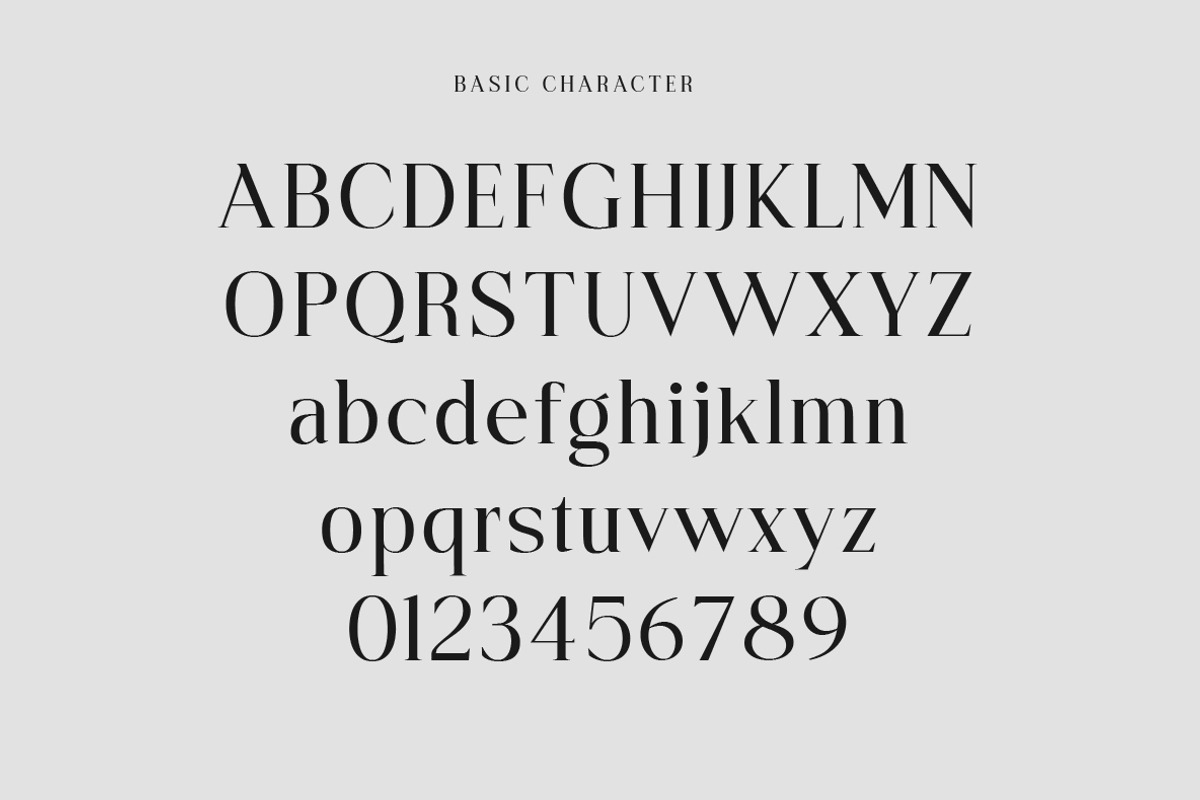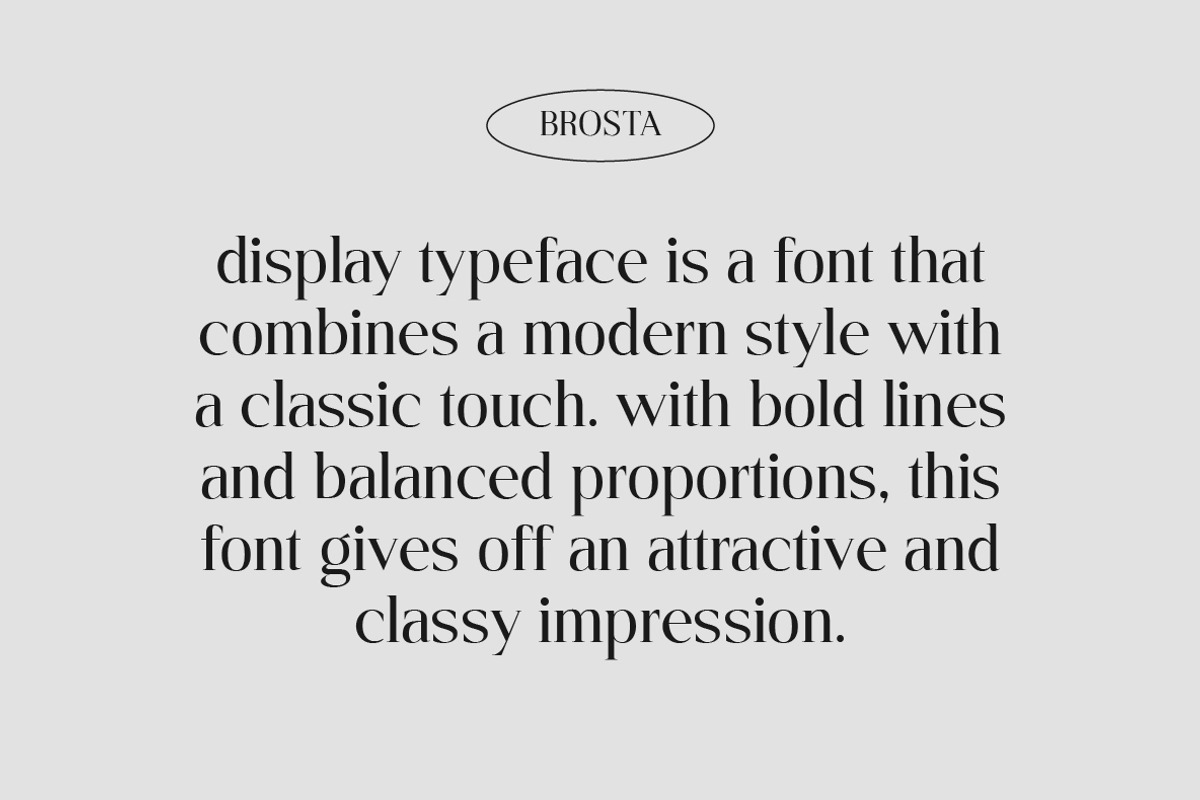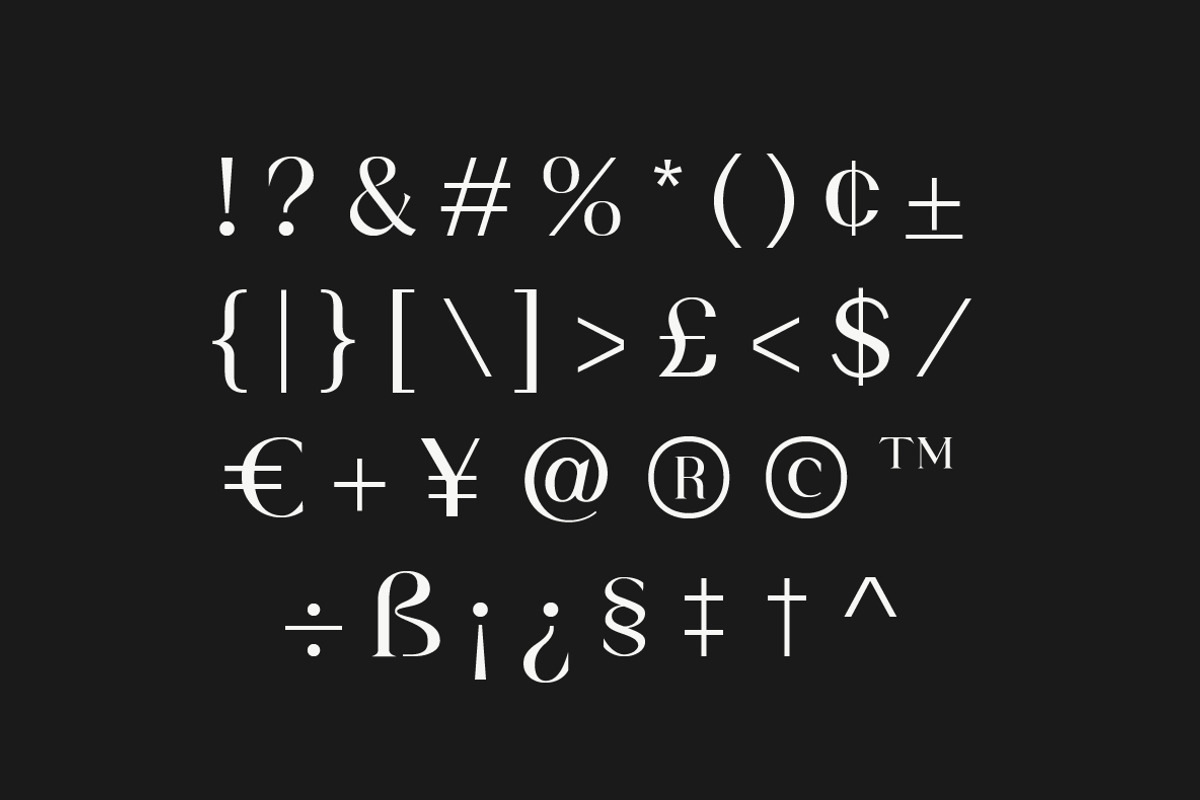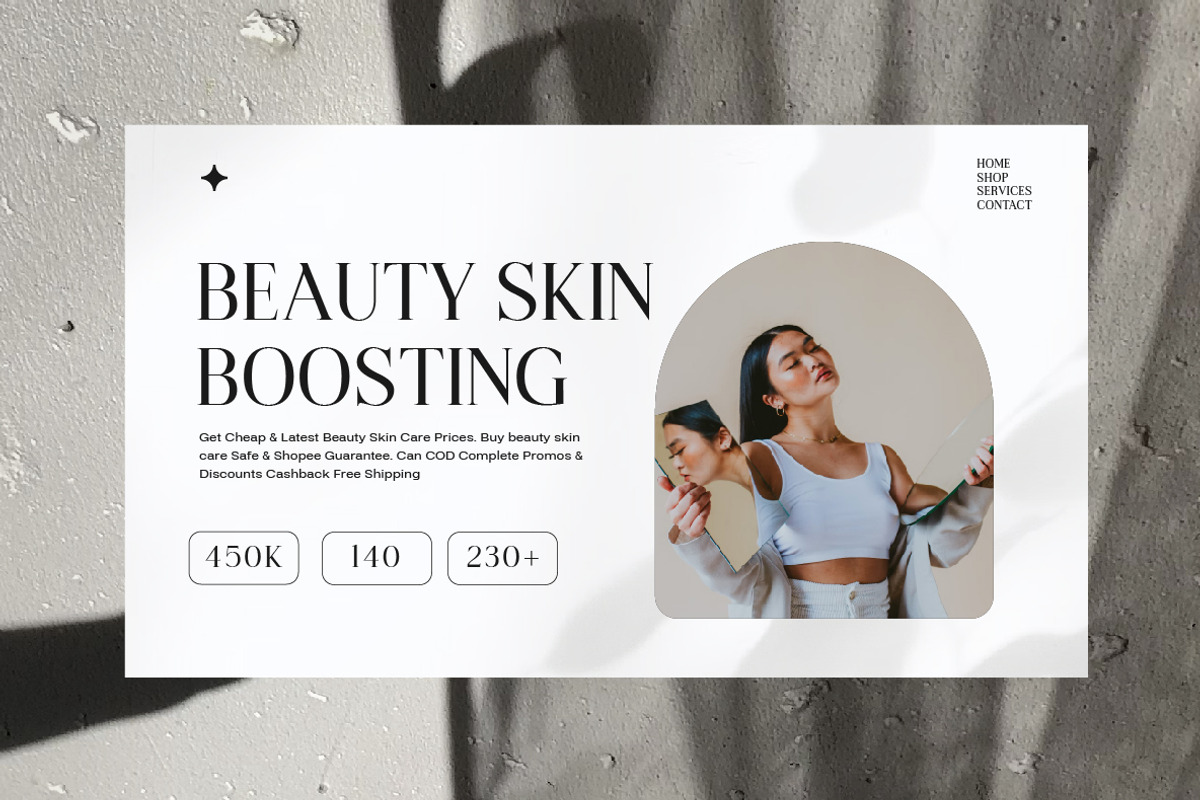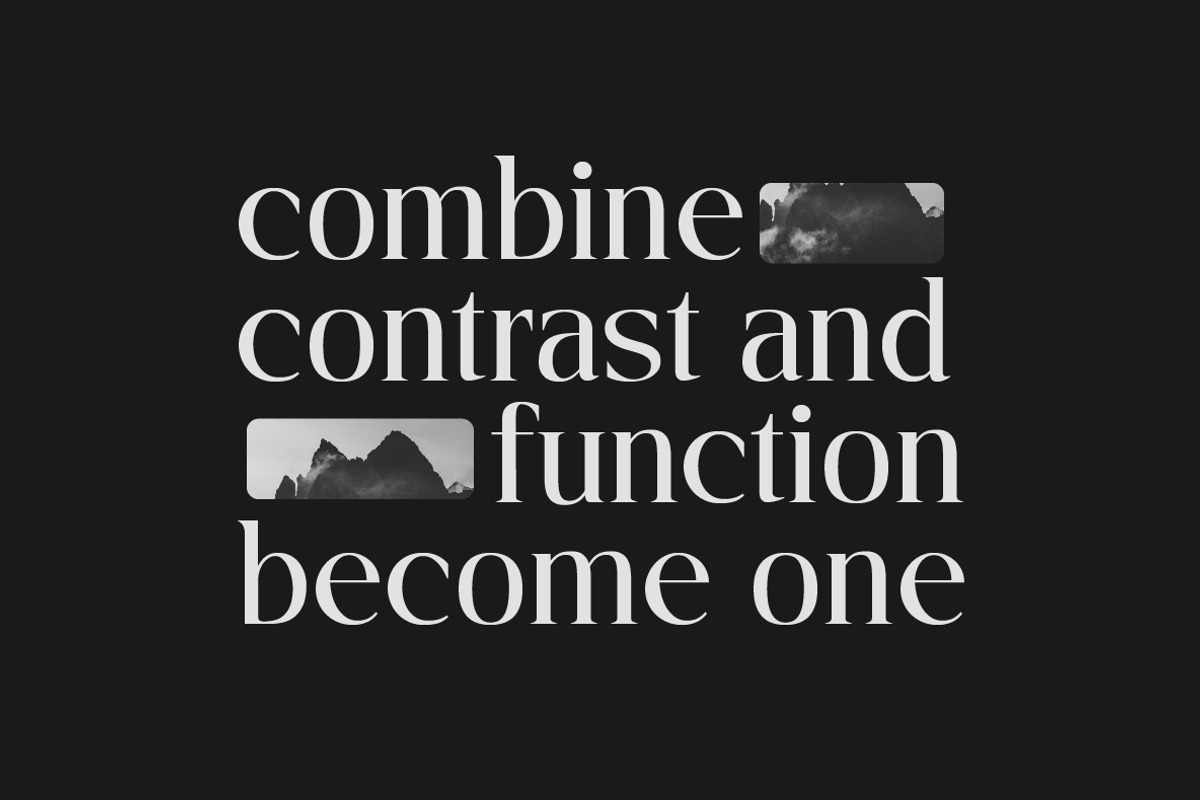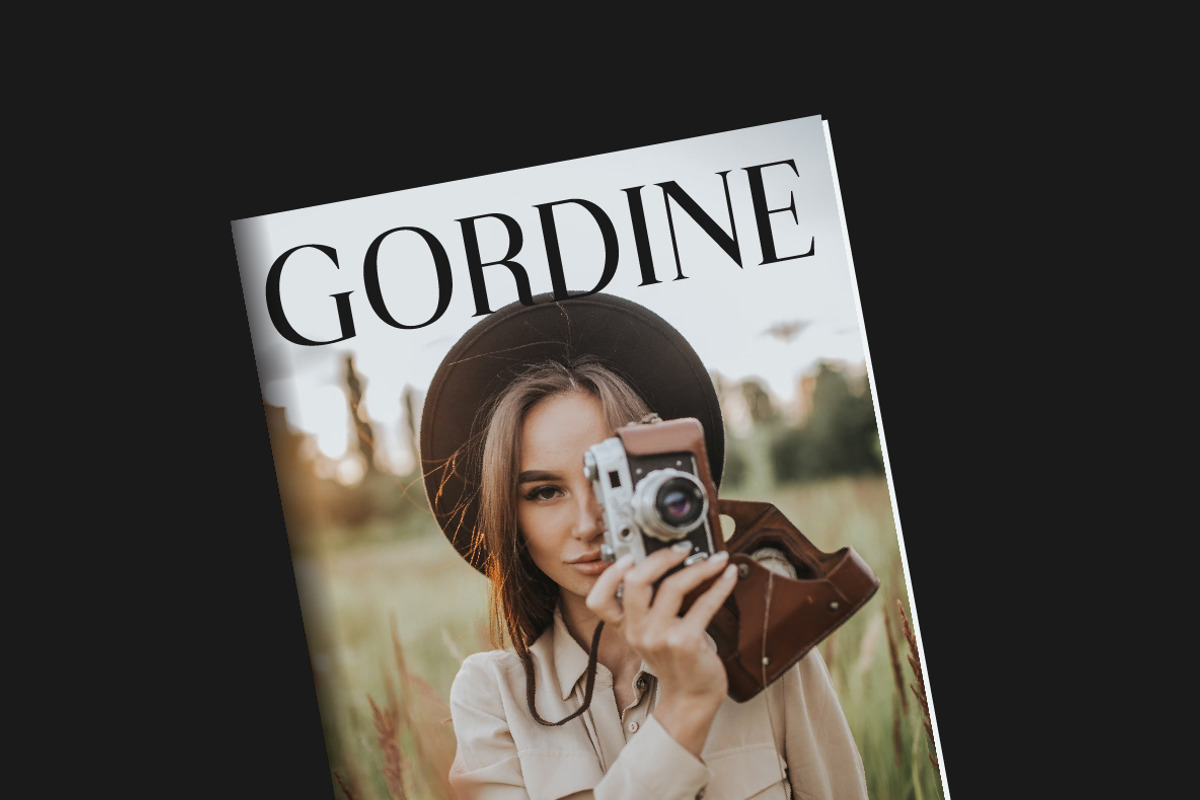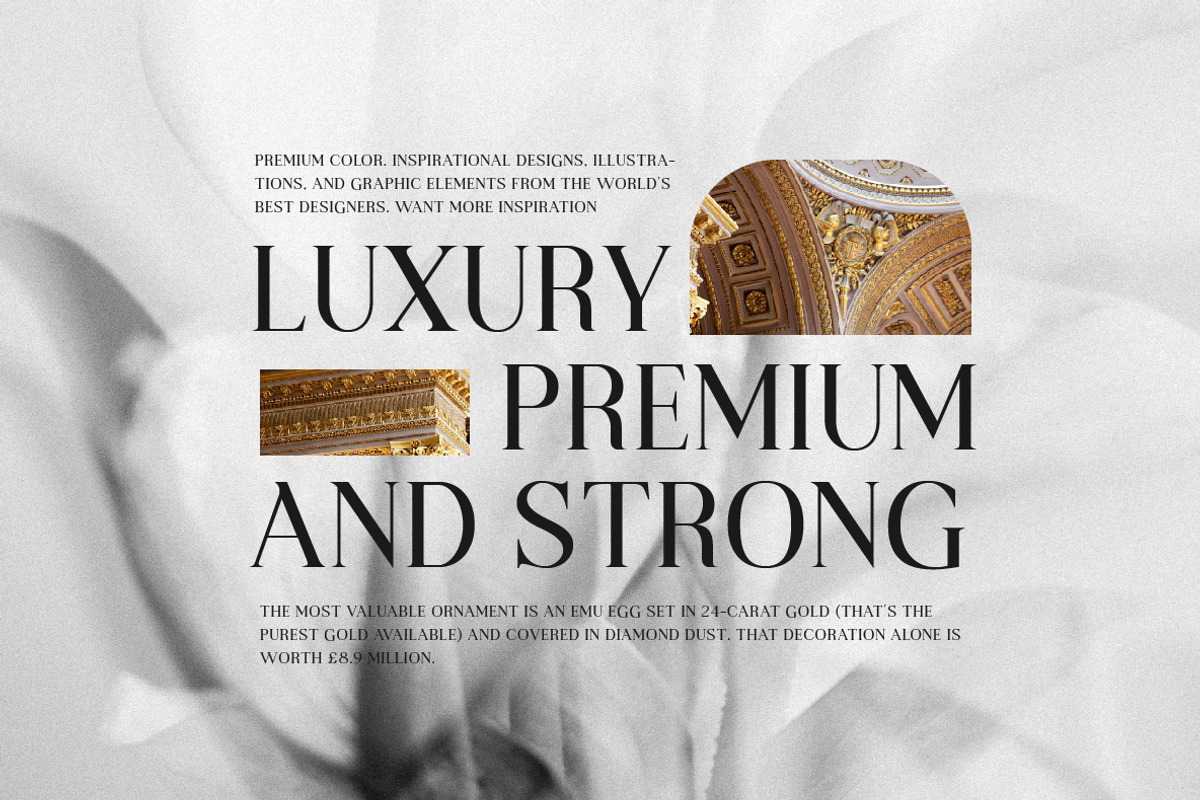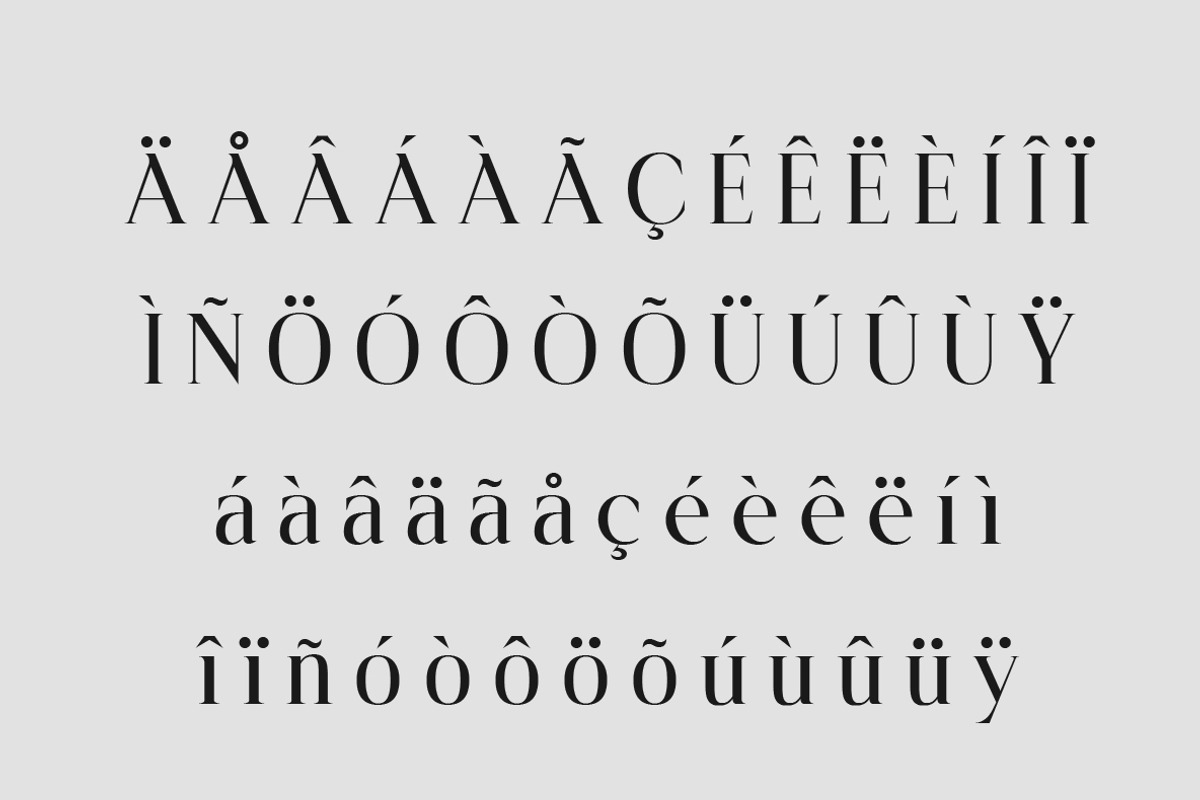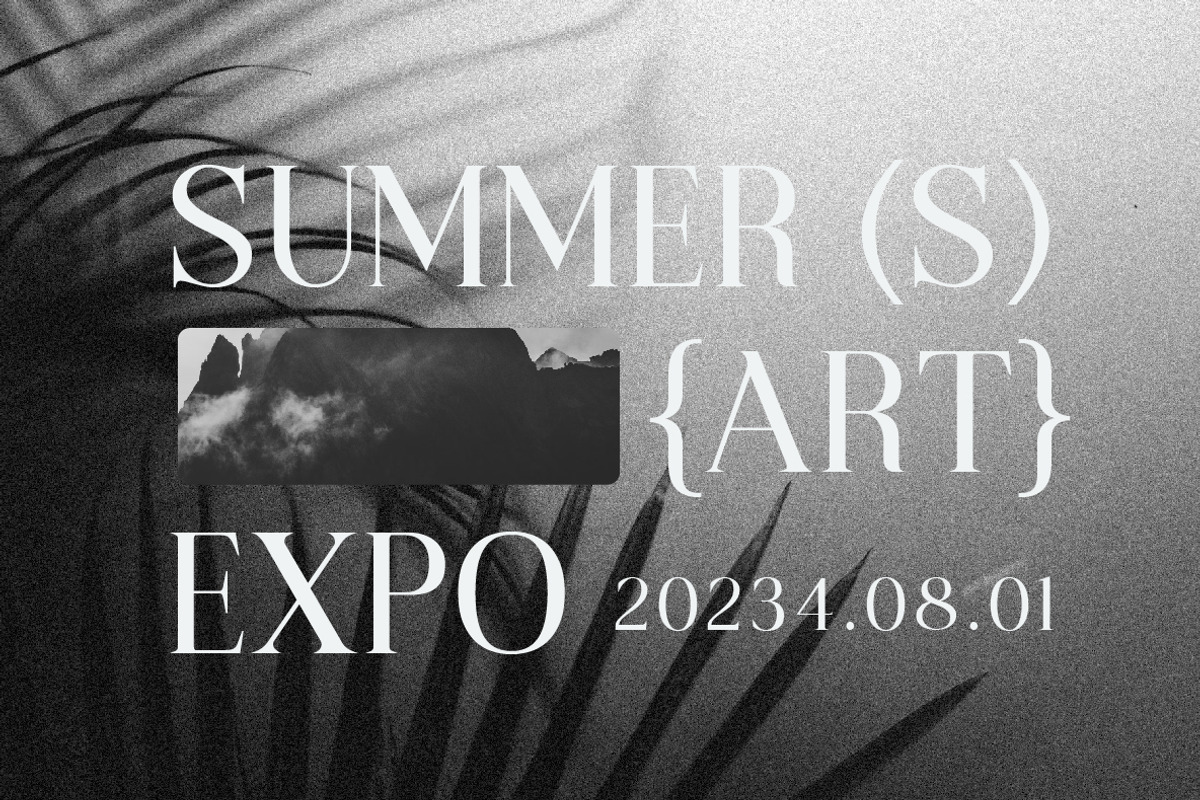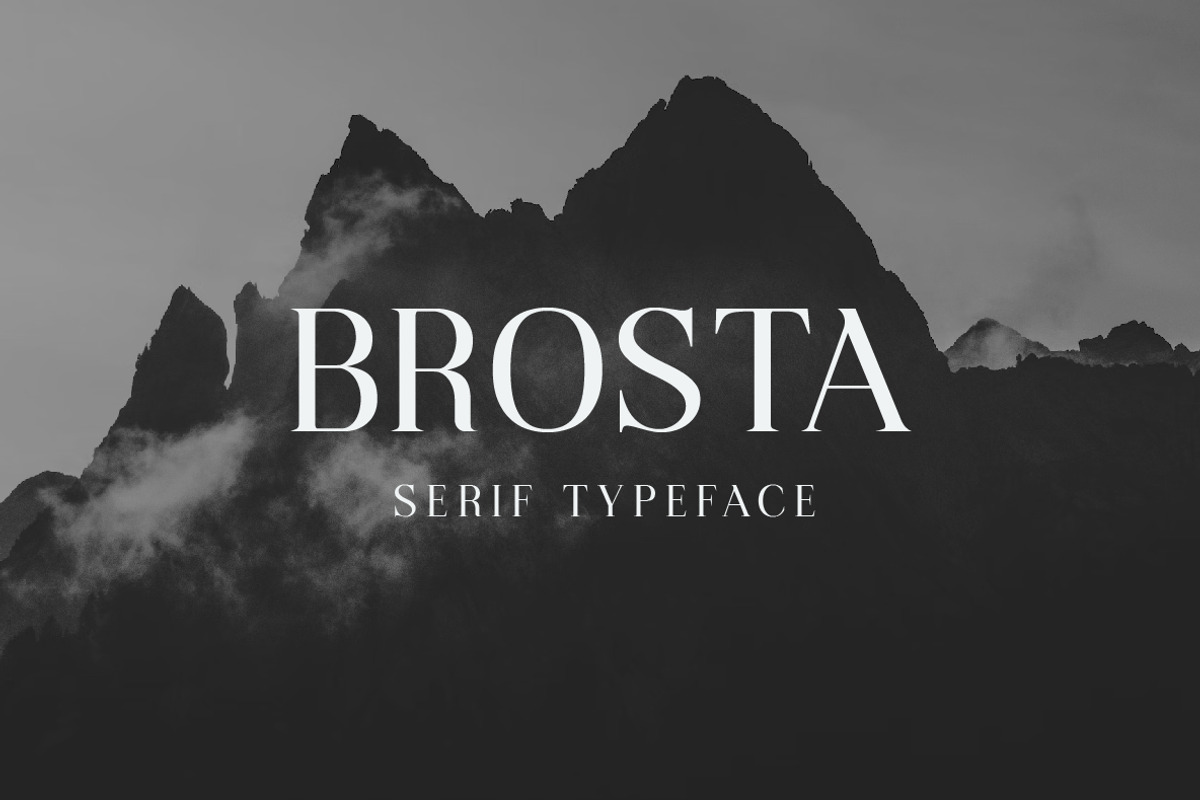
Brosta Serif Fonts
Brosta Serif Fonts are the font of choice for designers looking to add a touch of sophistication and modernity to their projects. The bold letters create a strong yet minimalistic feel that can make any text stand out.
- Classic serif font with a modern twist
- Ideal for bold headings or simple text needs
- Creates a clean and minimalist impression
- Perfect for Digital and Print Projects
Looking for a sleek, modern font that still has classic charm? Brosta Serif Fonts! This clean, minimalist option is perfect for everything from headlines to body copy.